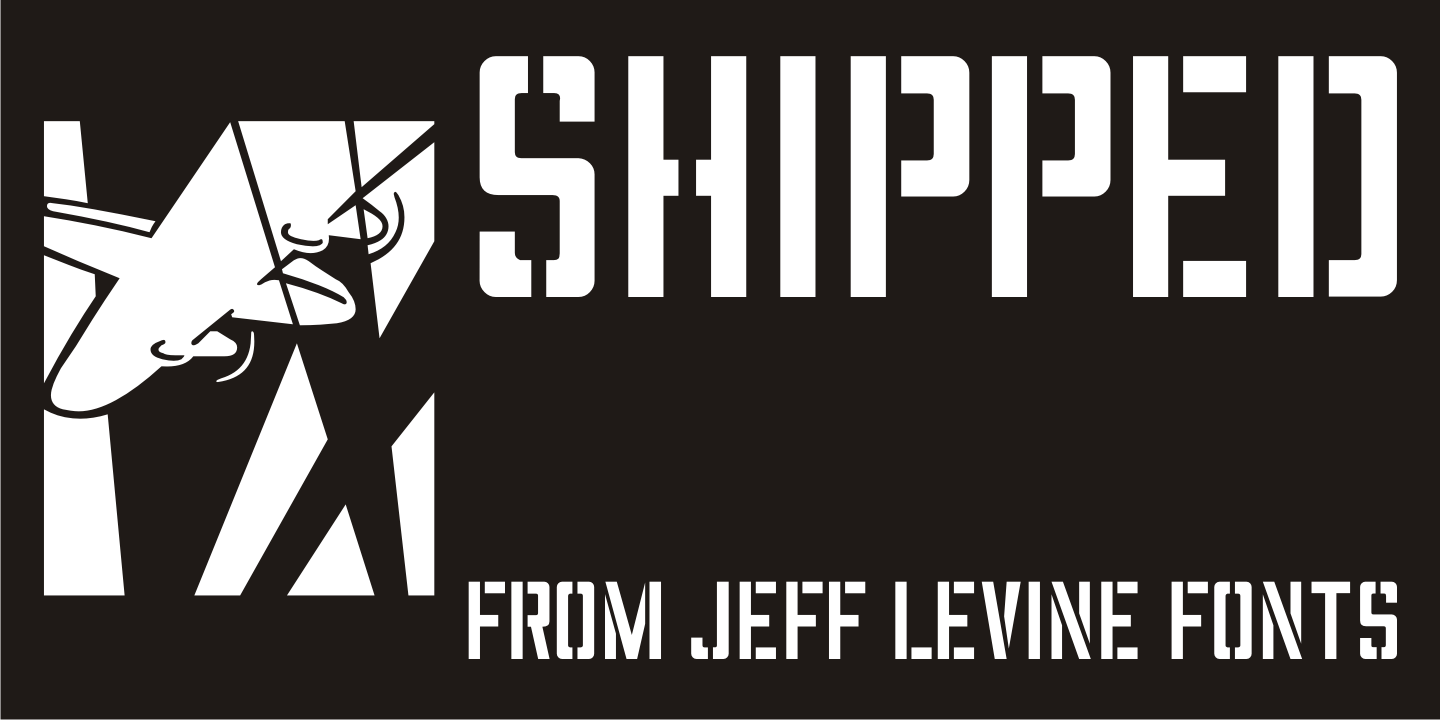
Shipped
One of six fonts inspired by old stencil lettering guides, Jeff Levine has drawn a font which captures the feel of simpler times when signs and posters were stencilled by school children, teachers, librarians and shopkeepers.
Shipped JNL Regular by Jeff Levine Fonts